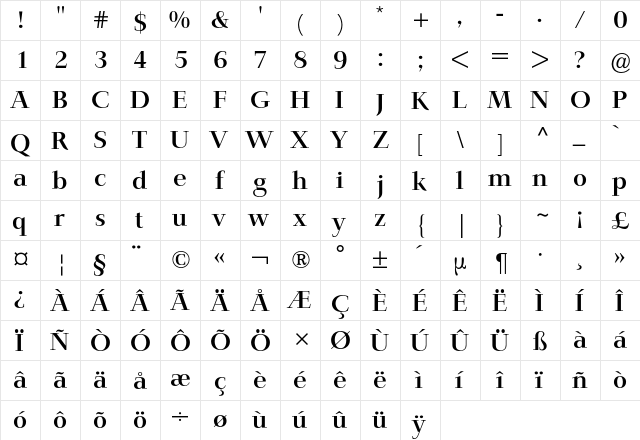
Jaeger-Antiqua BQ Regular
Design Context for Jaeger-Antiqua BQ Typeface
Jaeger-Antiqua BQ is a composed and adaptable typeface that performs quietly and consistently across a wide range of design contexts.